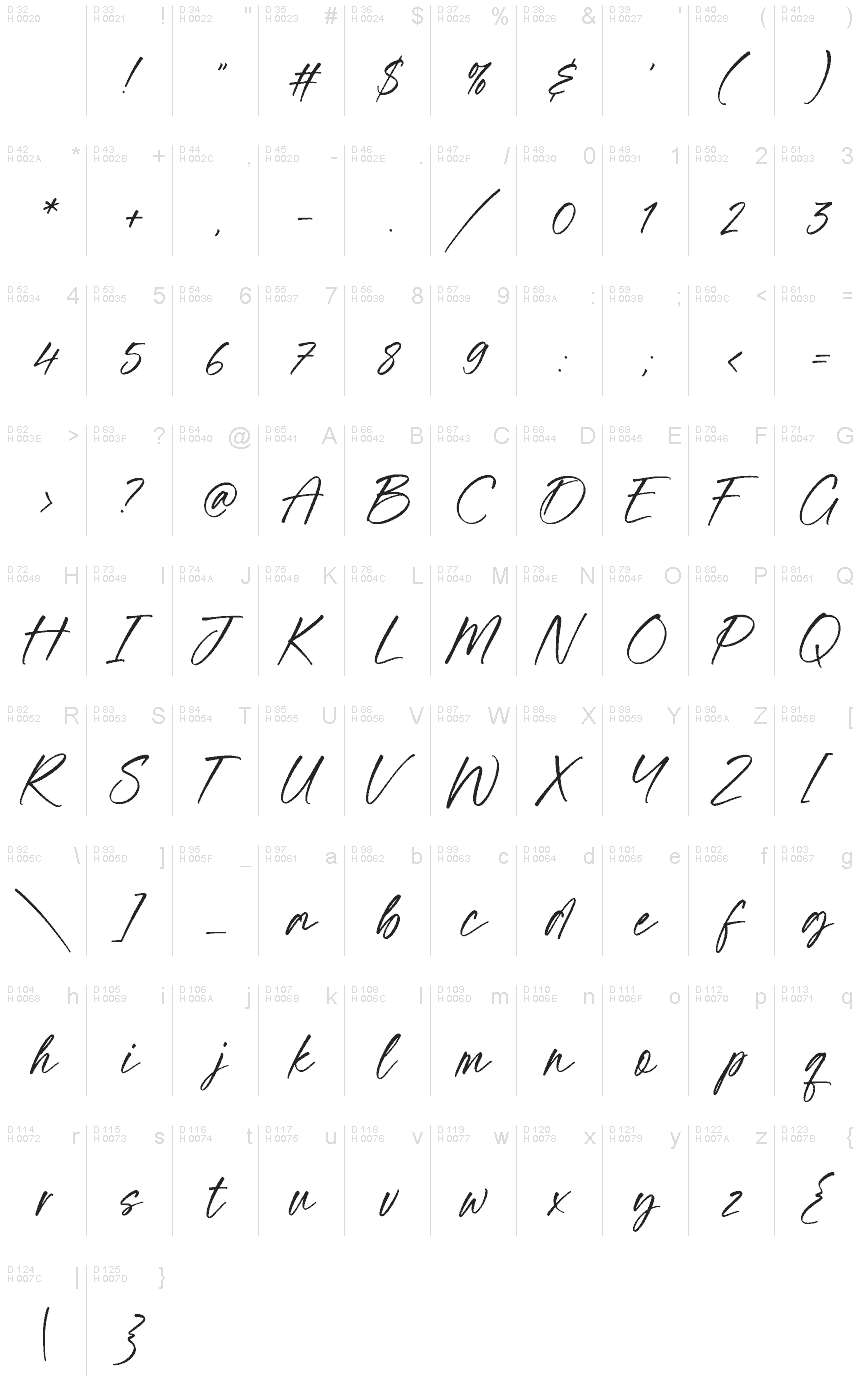
Lovely Darling
Lovely Darling font by Letterative Studio is a romantic handwritten signature font, which exudes elegance and gentleness. The expressive style of this light weight captures attention with ease whether used alone or with other typefaces. The visually-pleasing design nicely combines genuine freeform script characters and modern calligraphic elements.
Various personal and professional projects can benefit from the addition of Lovely Darling including invitations, postcards, personalized gifts, biographies, advertisements, branding projects, packaging designs, social media banners/posts/stories/highlights covers. The font is versatile enough to be applied in all sorts of digital or print media files as well.